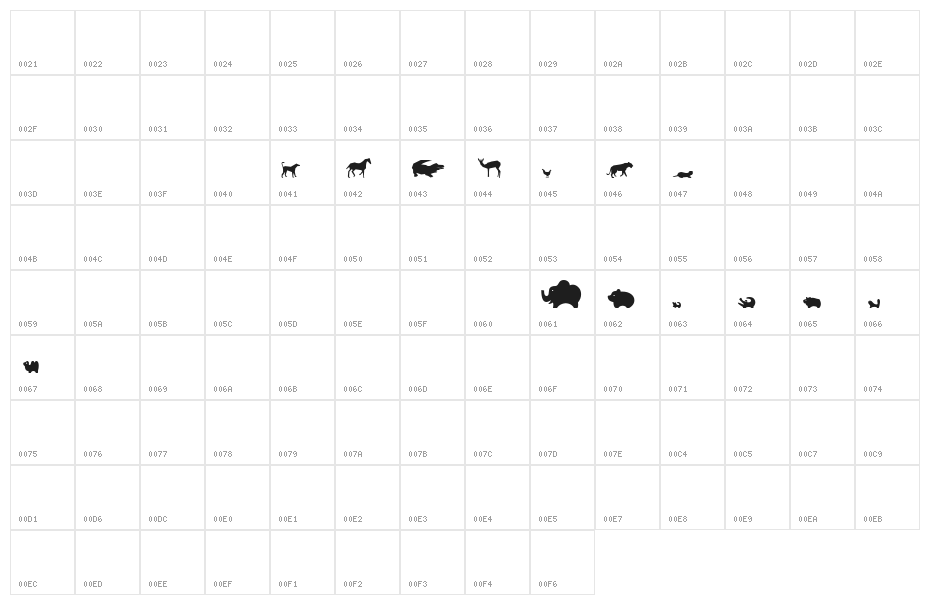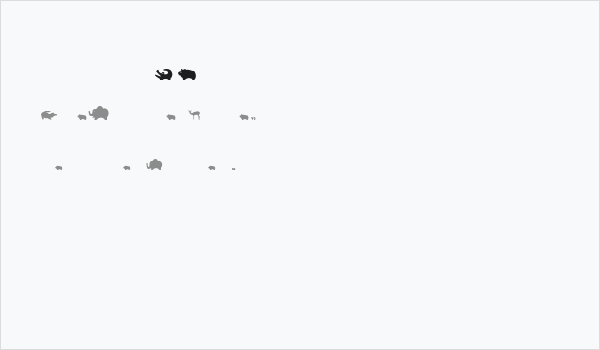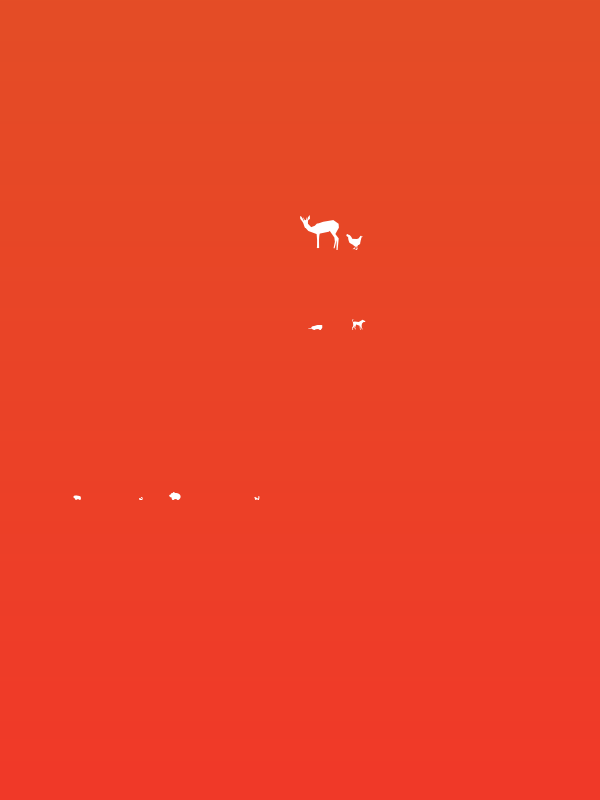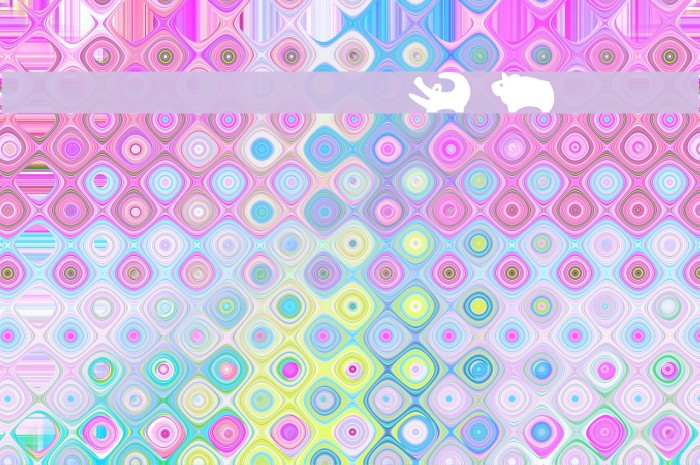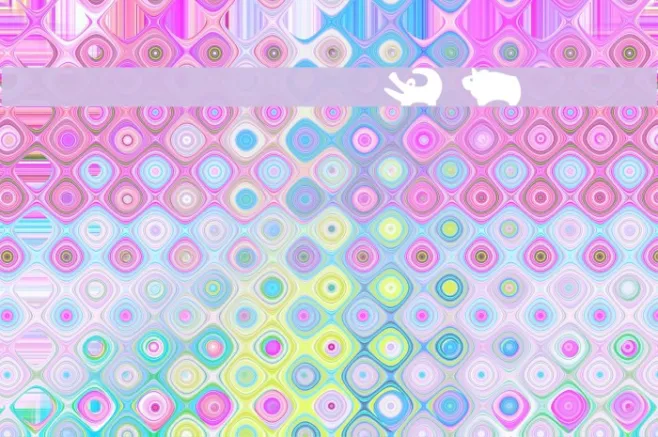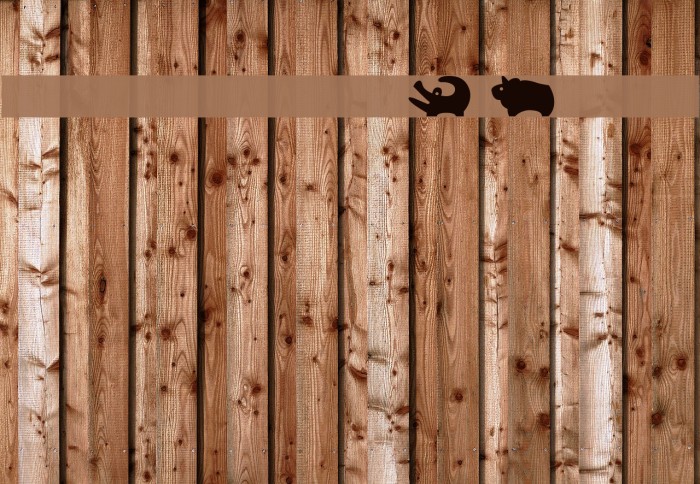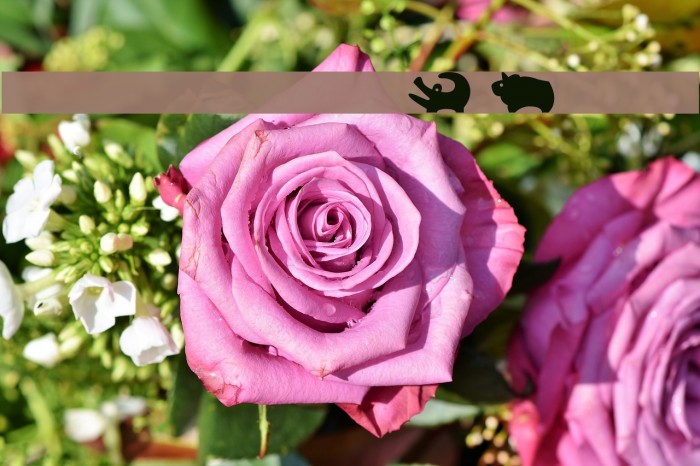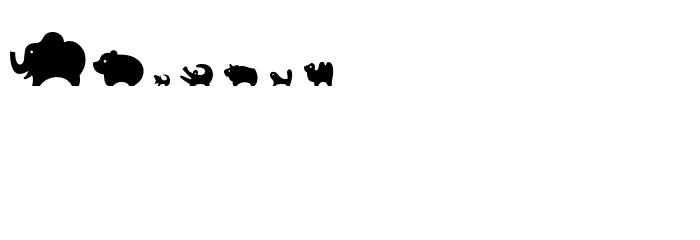
Zoodemo Font
Zoodemo Description
A decorative font composed of animal silhouettes representing each character, with each glyph designed as a distinct animal shape in solid black, providing a playful and illustrative appearance.
| Overall Style | Decorative, Playful |
| Use Case | Logos, Posters, Themed Headlines, Educational Graphics |
| Proposed Projects | Children’s books, educational materials, zoo or wildlife branding, playful posters, themed invitations. |